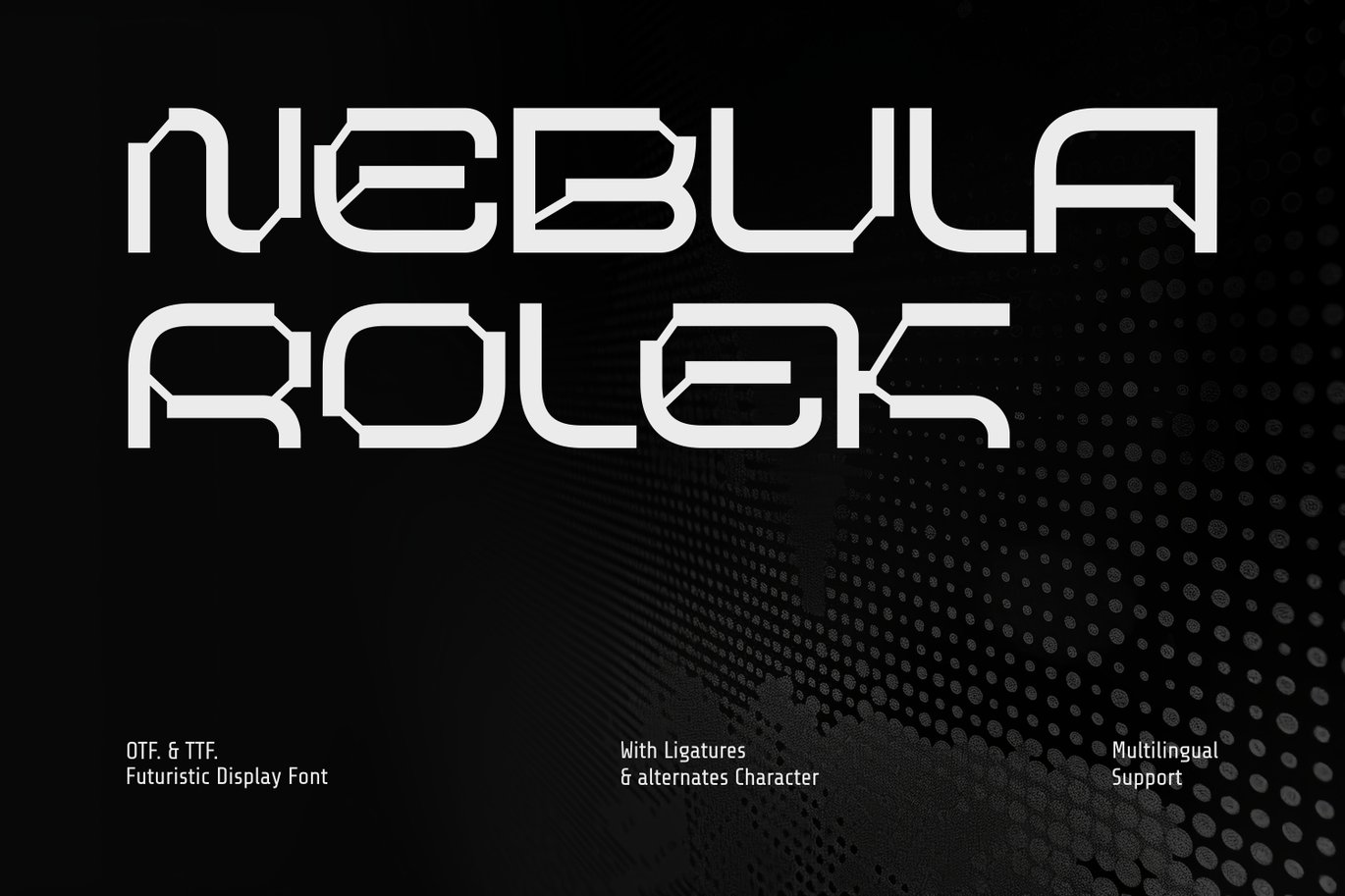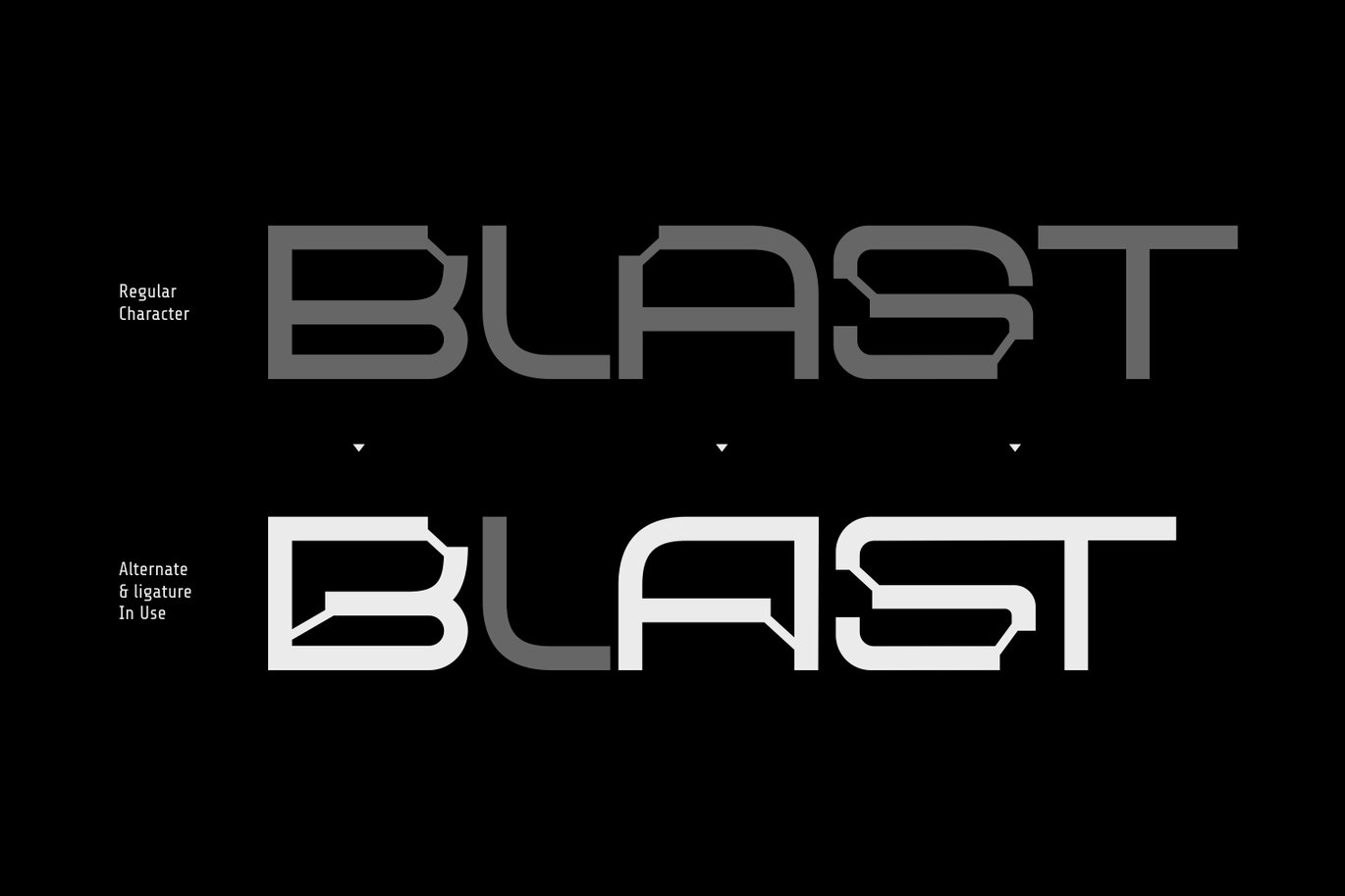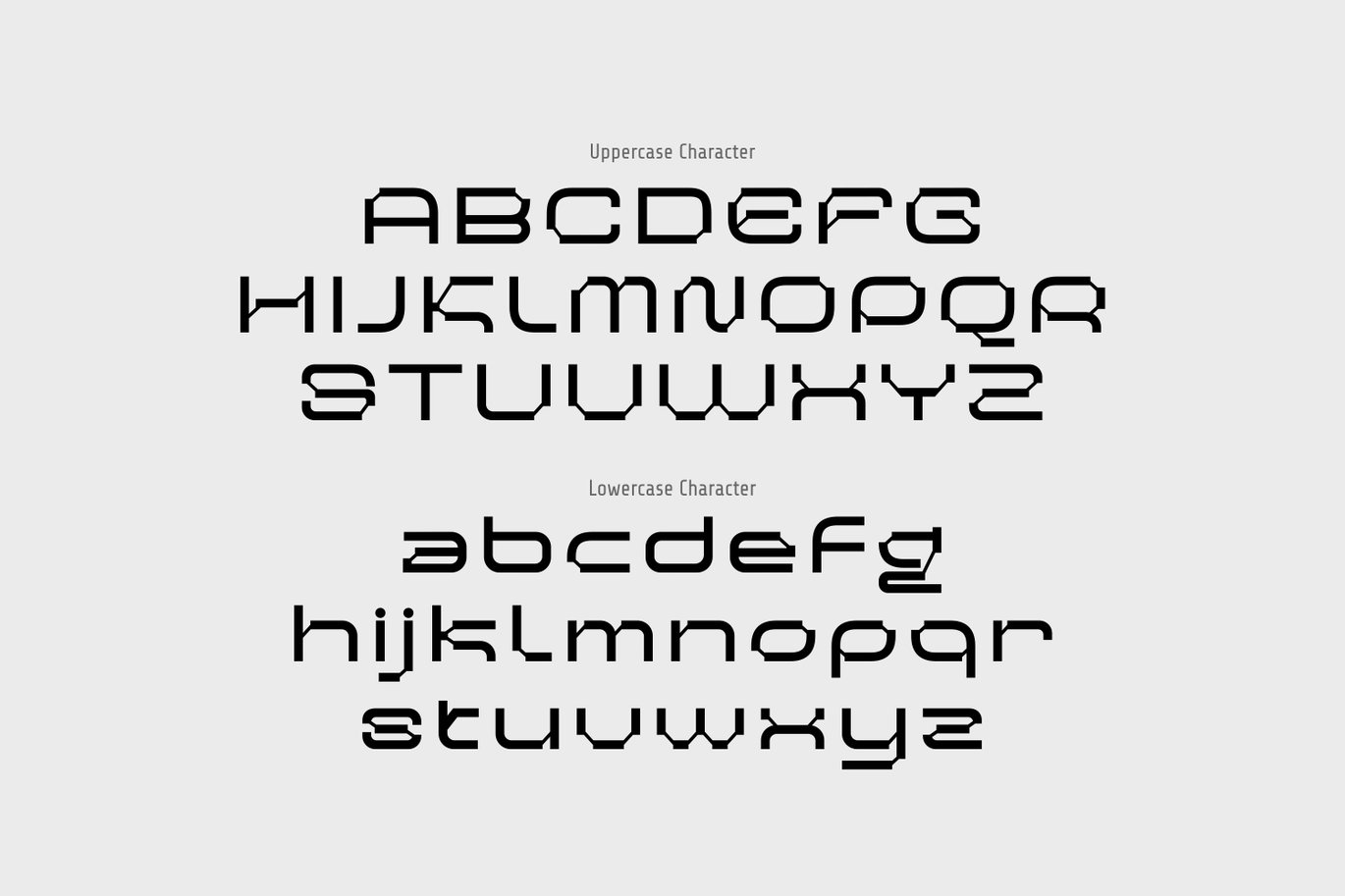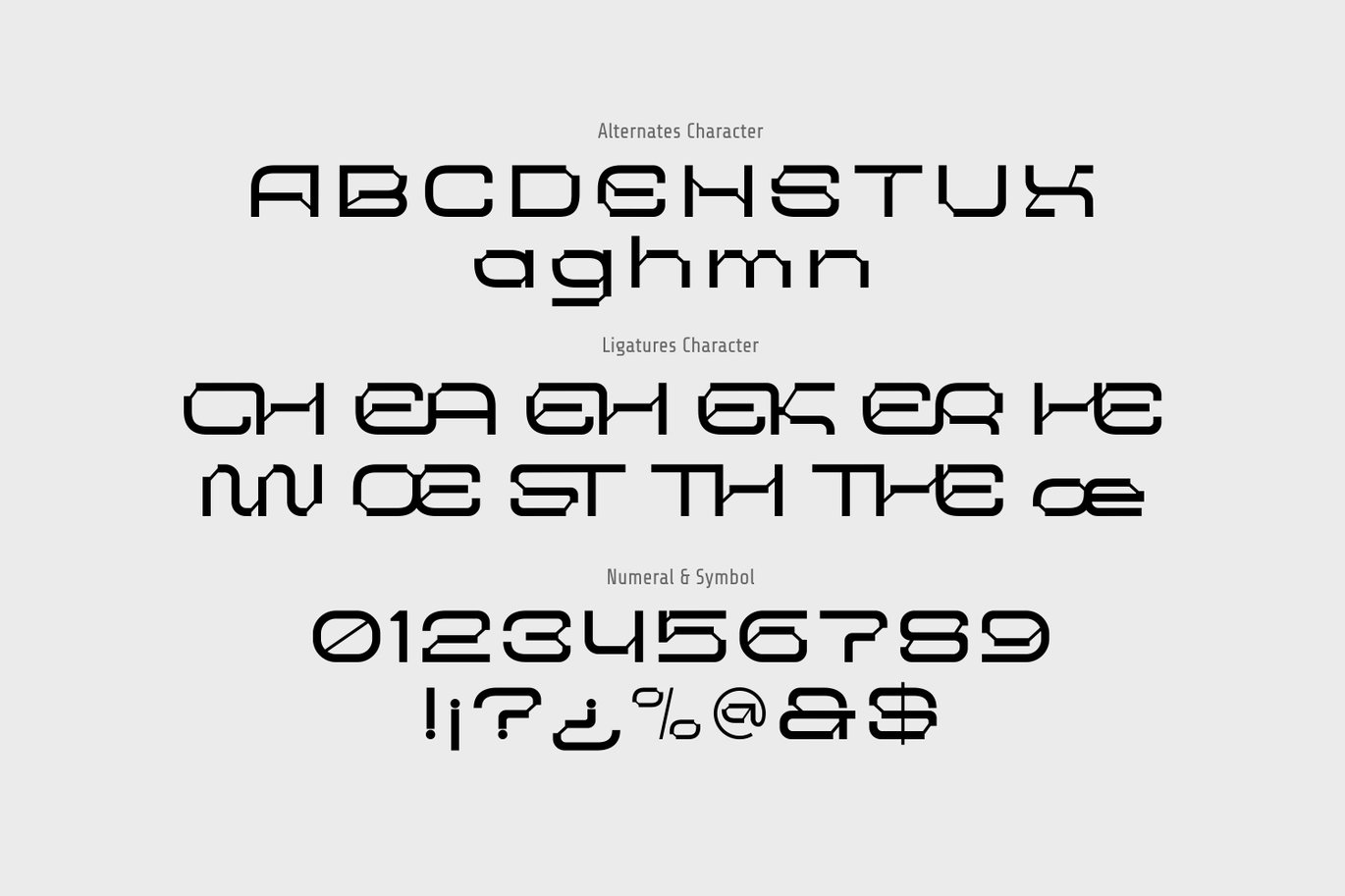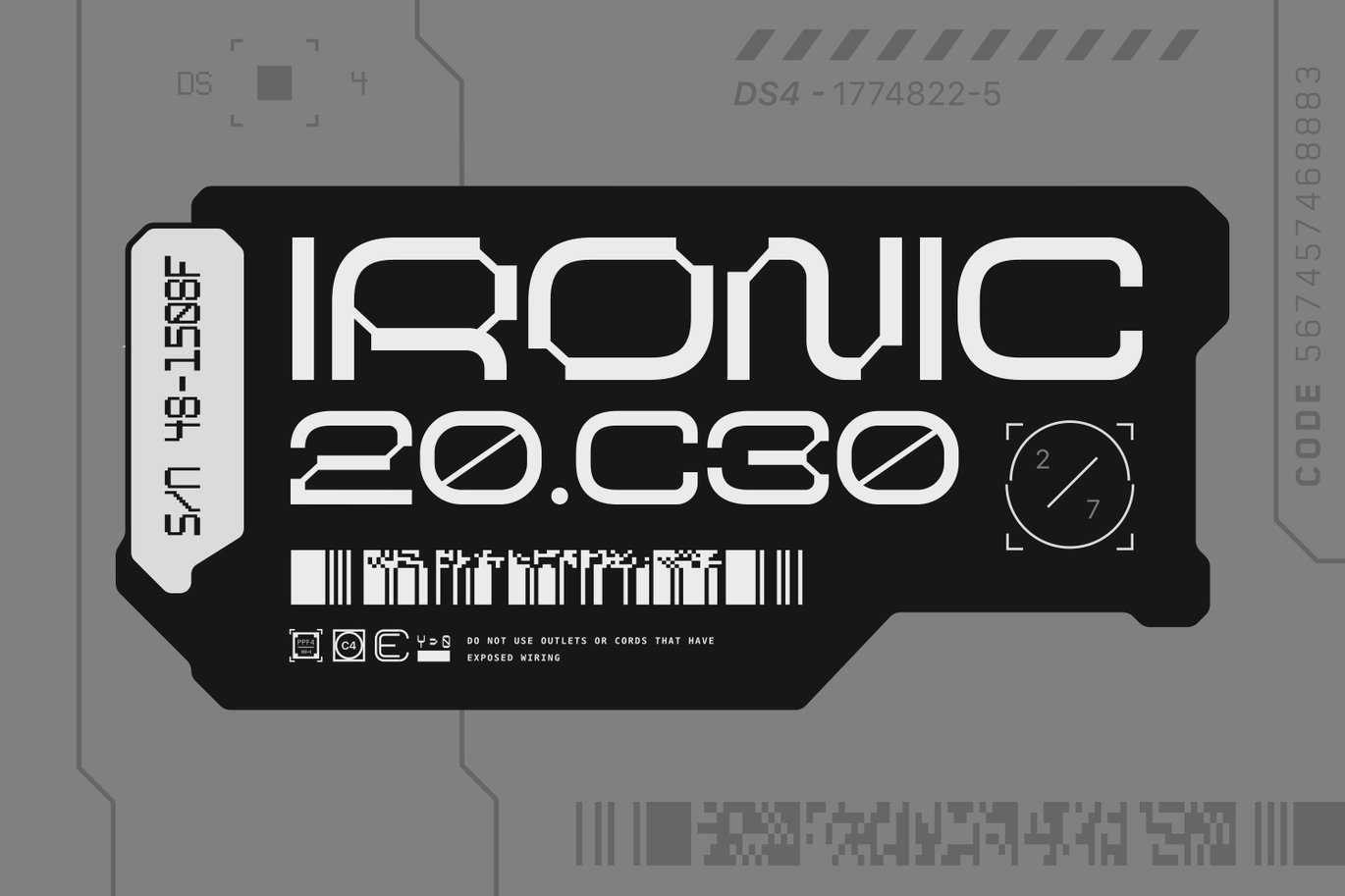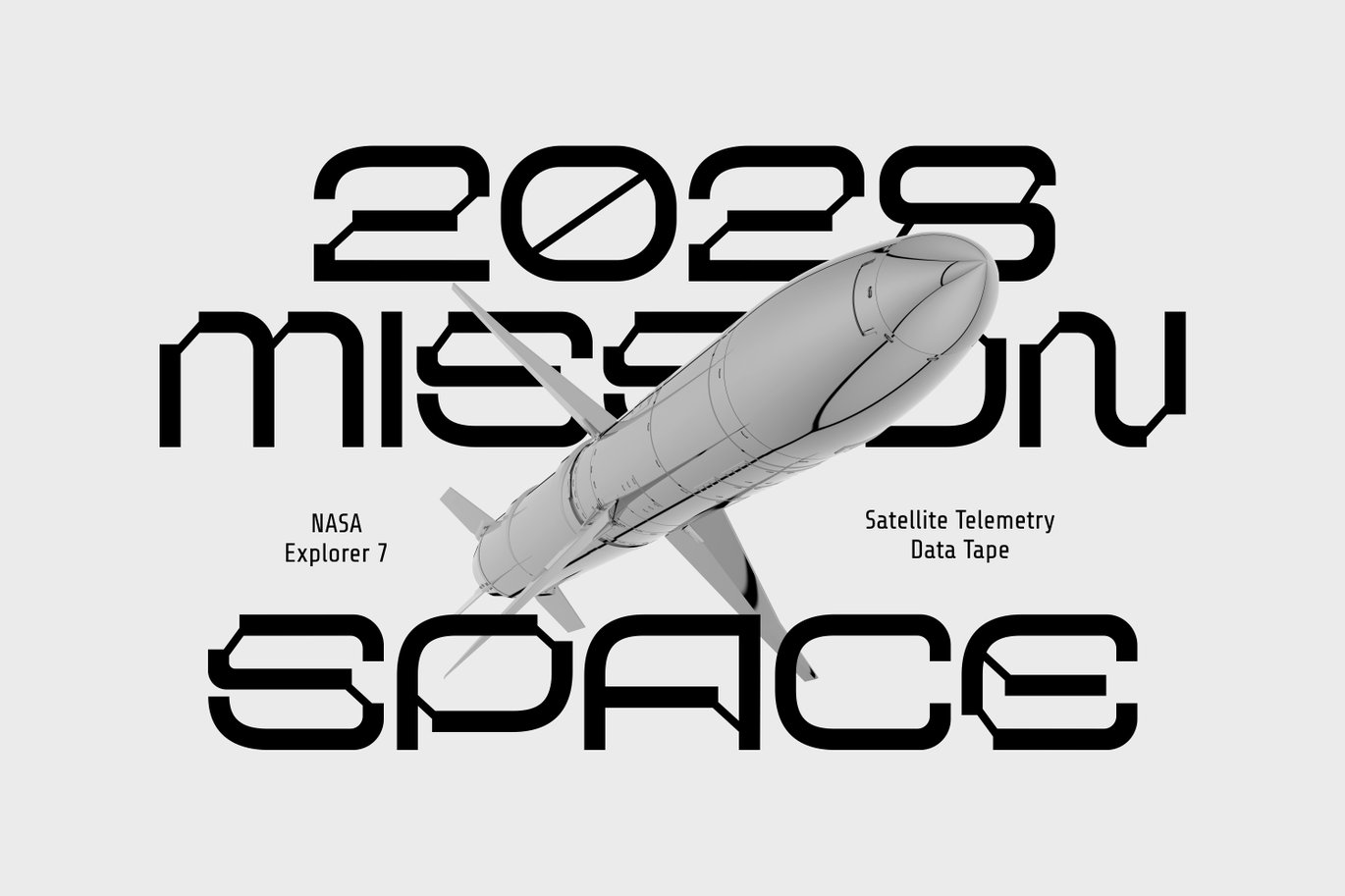
Nebula Rolek – Futuristic Space Font
Dive into the future with Nebula Rolek, a font that embodies the perfect blend of sci-fi aesthetics with cutting-edge technology. Nebula Rolek is designed to elevate your projects to a new level of modernity and innovation.
This font ideal for a range of contemporary designs, Whether used in tech branding, arcade, poster cyberpunk, sci-fi designs, or any project seeking a bold and progressive style, Nebula Rolek adds a touch of futurism to your typography, setting your text aglow with a sleek and visionary allure.
- Punctuation, Alternates and, Ligatures
- Number and Symbol